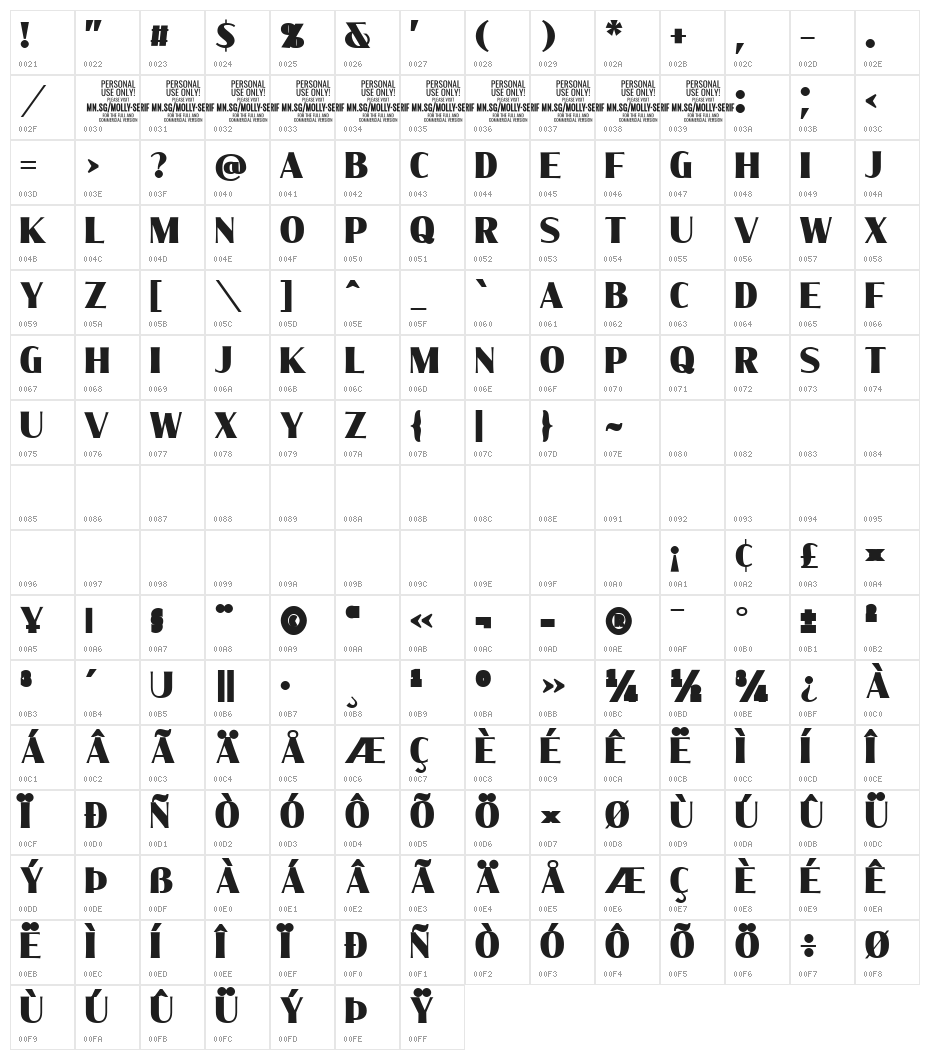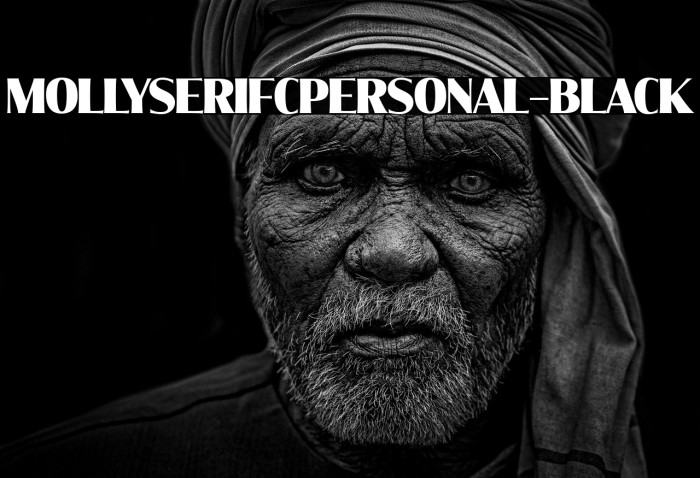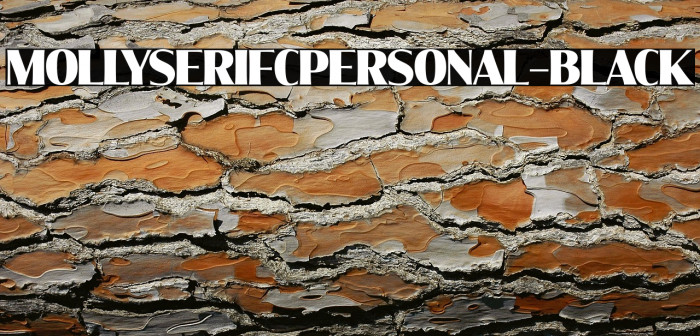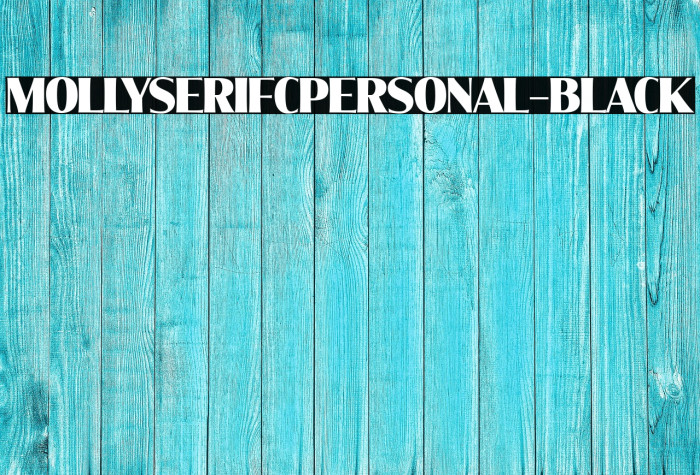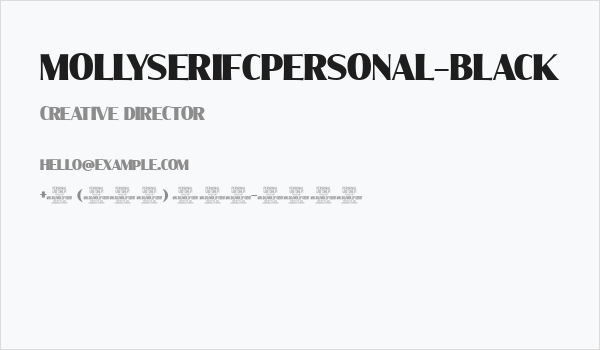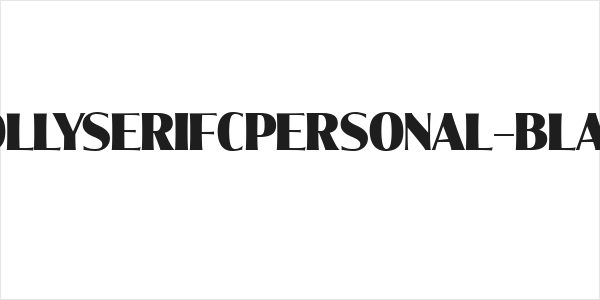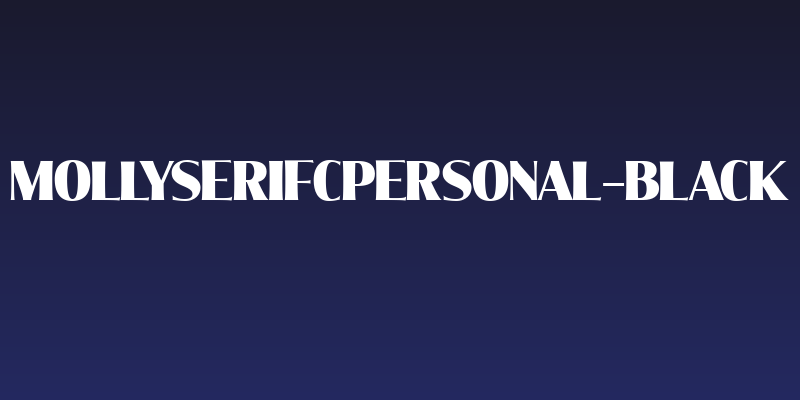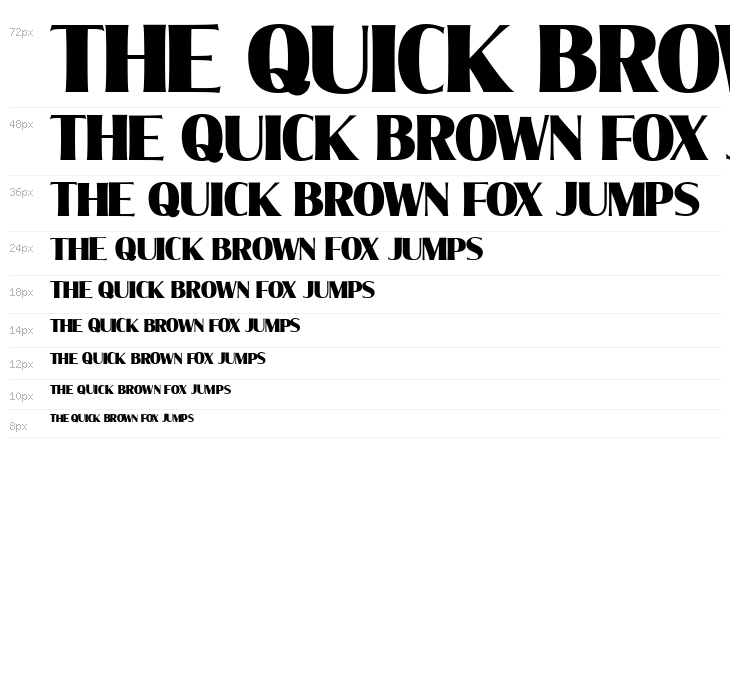
MollySerifCPERSONAL-Black Font
MollySerifCPERSONAL-Black Description
This font exhibits a bold and striking presence with its thick, heavy strokes and sharp, angular serifs. The uppercase letters are particularly commanding, featuring a strong vertical emphasis and a slight inward curve at the terminals, which adds a touch of elegance to the overall robust appearance. The lowercase letters maintain this boldness, ensuring consistency across the typeface. The numerals and special characters are equally bold, making them stand out prominently. This font's design is both modern and classic, combining traditional serif elements with a contemporary twist.